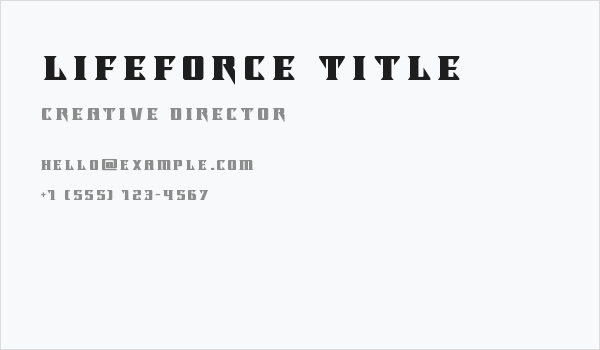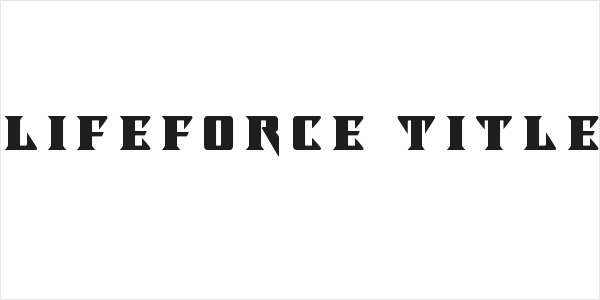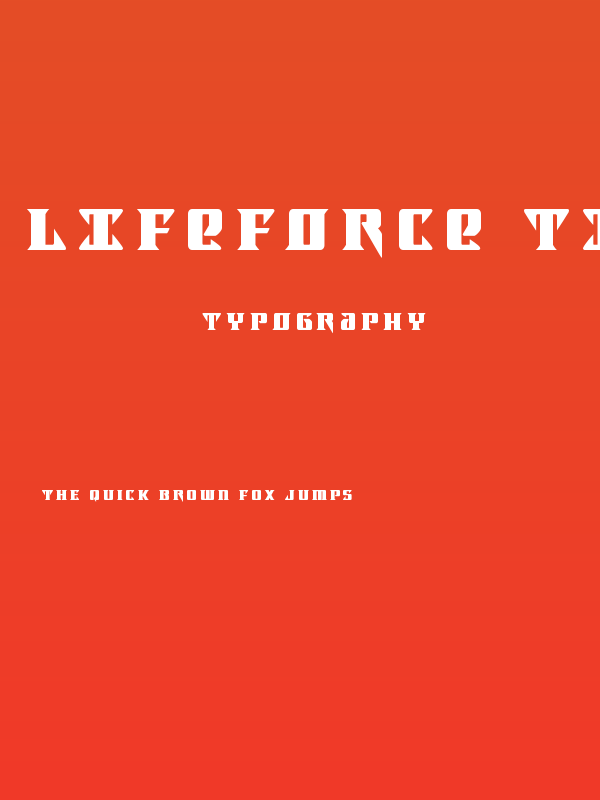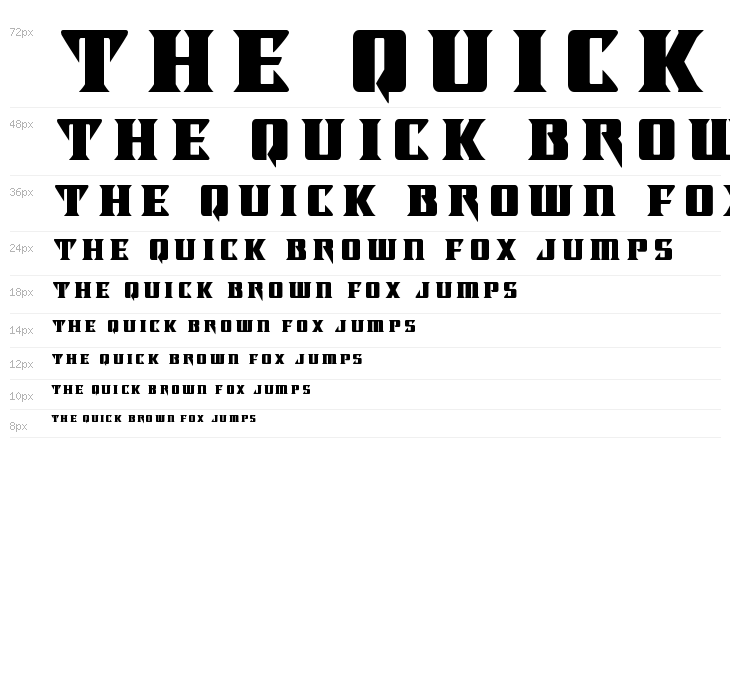
Lifeforce Title Font
Lifeforce Title Description
This font features a bold and striking design with sharp, angular edges and a strong geometric structure. The characters are designed with a high level of contrast, emphasizing the boldness of each letter. The uppercase and lowercase letters maintain a consistent style, with the uppercase letters exhibiting a slightly more pronounced angularity. The numbers and special characters follow the same design principles, ensuring a cohesive look across all characters. This font is ideal for making a strong visual impact and is well-suited for use in titles, logos, and other display purposes.
| Use Case | Headlines, Logos, Display |
| Proposed Projects | Ideal for movie posters, video game titles, branding, and logos where a strong, impactful presence is needed. |